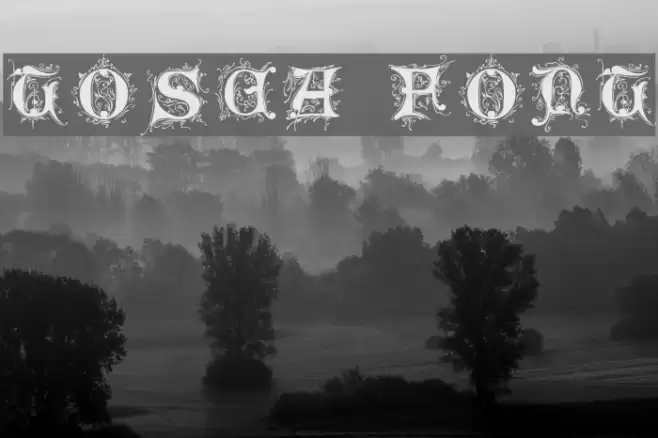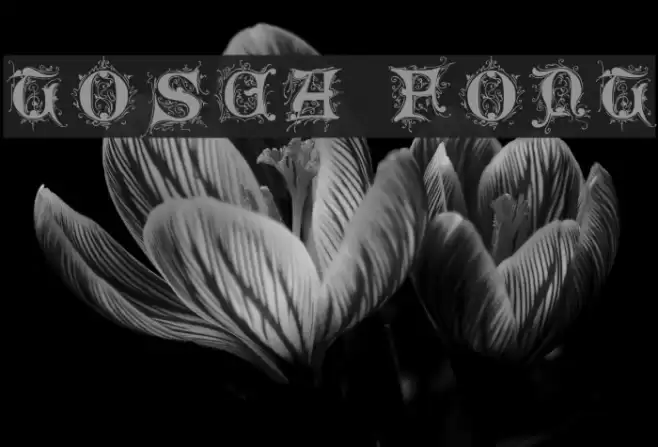
Tosca Font
Tosca Description
This font is a highly decorative and intricate design, characterized by elaborate flourishes and embellishments that extend from each letter. The style is reminiscent of Gothic or medieval script, with a strong emphasis on ornate details that give it a regal and historic appearance. The letters are bold and striking, with sharp edges and a sense of grandeur. This font is not suitable for body text due to its complexity but makes a strong visual impact in headlines or titles. The overall aesthetic is both vintage and artistic, making it ideal for projects that require a touch of elegance and sophistication.
An ornate, Gothic-style font with elaborate flourishes and bold, striking letters from Uncategorized fonts.
- Proposed Projects: Ideal for wedding invitations, historical-themed posters, book covers, or any project requiring a vintage or regal touch.
- Overall Style: Vintage